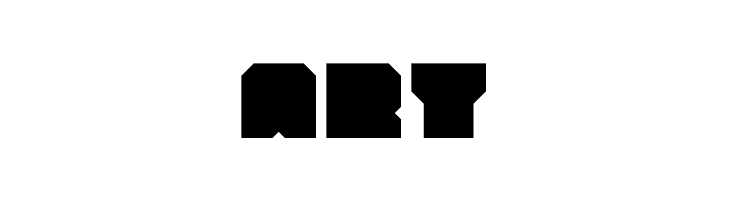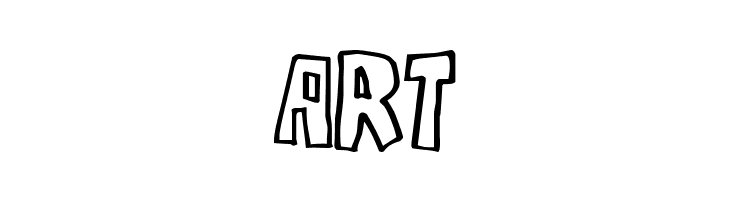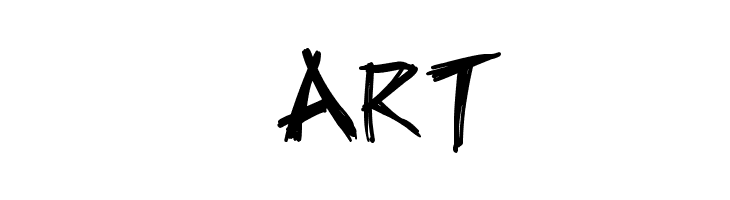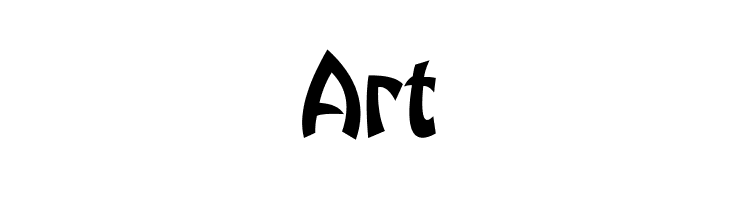
A modern sans-serif font with clean lines and excellent readability.
A bold, hand-painted style font with expressive, brush-like strokes.
Edgy, brushstroke font with sharp, chaotic lines and a distressed look.
A dramatic, brushstroke-inspired display font with splattered, elongated forms.
Edgy brushstroke font with splatter and sharp, chaotic forms.
Edgy, brushstroke font with sharp, distressed forms.
A chaotic, brushstroke display font with elongated, jagged forms and ink splatters.
A bold, chaotic brushstroke font with sharp, distressed edges.
Chaotic, brushstroke font with a distressed, hand-drawn look.
A bold, jagged, hand-drawn font with an edgy and energetic style.
A bold, thorn-like decorative font with a chaotic, edgy style.
A bold, geometric font with a brutalist, architectural style.
A bold, hand-drawn font with a playful and chaotic style.
A bold, edgy font with a hand-drawn, jagged style.
A bold, rugged font with irregular, angular letterforms and a hand-cut appearance.
A bold, rugged font with a distressed, hand-drawn appearance.
A bold, angular font with a futuristic and industrial feel.
A bold, slanted font with angular characters and strong visual impact.
A bold, edgy font with jagged, brush-like strokes and a rebellious aesthetic.
A bold, italic serif font with a classic and elegant style.
An elegant serif font with a classic italic style and moderate contrast.
A medium-weight, italic serif font with a classic and elegant style.
Elegant serif font with a semi-bold weight and italic style, offering a classic yet modern appeal.
An elegant script font with flowing, cursive style and intricate flourishes.
A modern, geometric font with a futuristic and bold design.
A modern sans-serif font with rounded edges and consistent stroke widths.
A bold, modern sans-serif font with clean lines and strong visual impact.